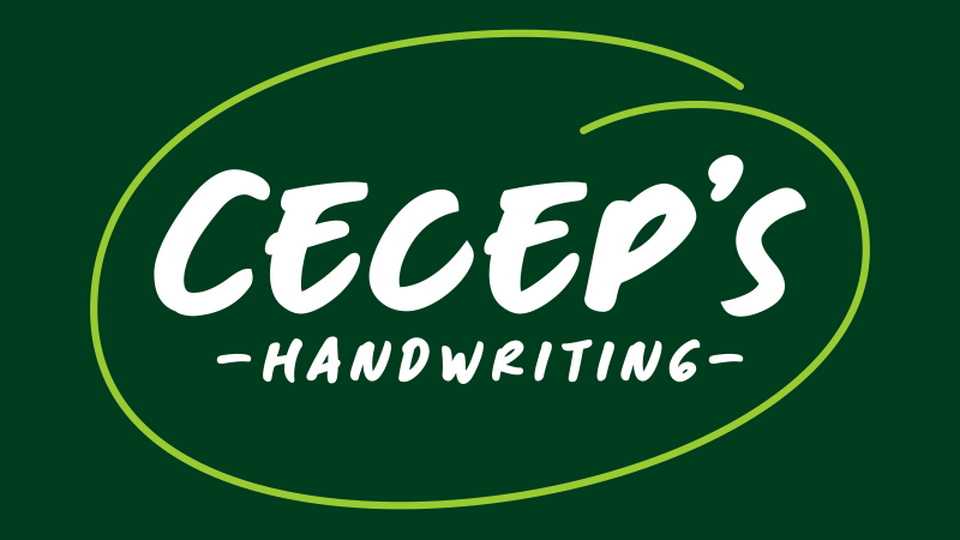
Download Cecep’s Handwriting font, a casual script made from digital handwriting, from the paper to your layer. Perfect for crafts, notes and quotes.
Designer: Twicolabs Fontdation